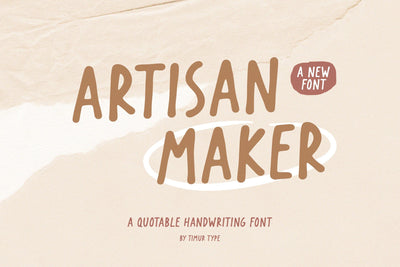
Artisan Maker - Qoutable Handwritten Font
Introducing by Timur type
Proudly Present, Artisan Maker
Artisan Maker A Qoutable Handwritten Font , which was created with great care and specially created for you
Artisan Maker is perfect for product packaging, branding project, megazine, social media, wedding, or just used to express words above the background.